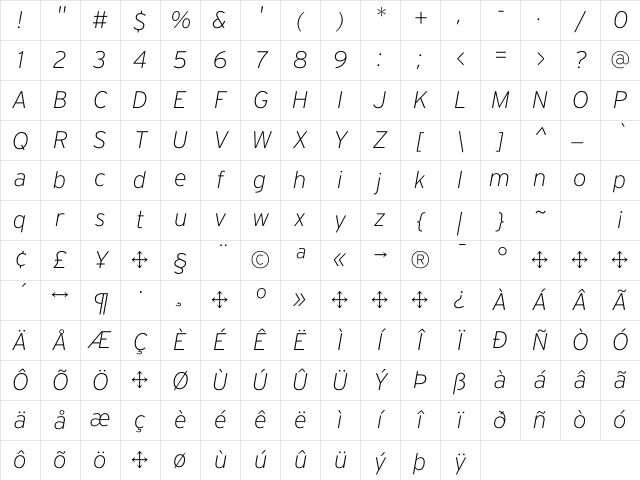
Interstate ExtraLight Italic Free Font
Interstate ExtraLight Italic
Style: ExtraLight Italic
Complete Interstate ExtraLight Italic glyph index. Displaying only characters natively supported by Interstate ExtraLight Italic font.
Design Context for Interstate
Interstate is a composed and adaptable typeface that performs quietly and consistently across a wide range of design contexts. The slanted form adds forward momentum and visual energy. Its slender proportions lend an understated elegance to any composition.
Pro Tip: Use Interstate for emphasis, pull quotes, and subheadings where its slanted energy can add rhythm to the layout.